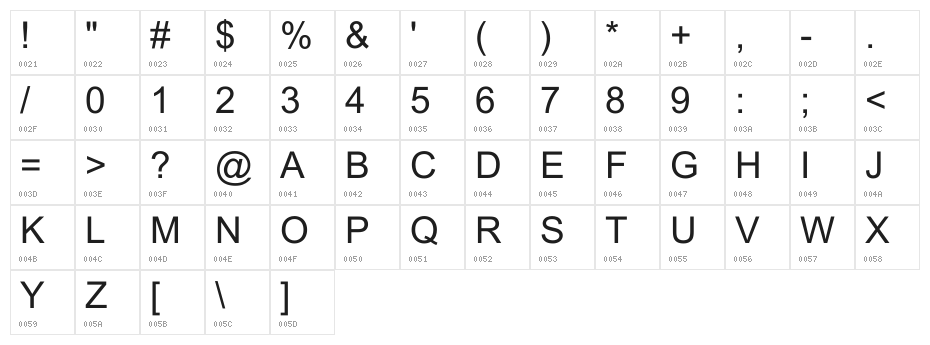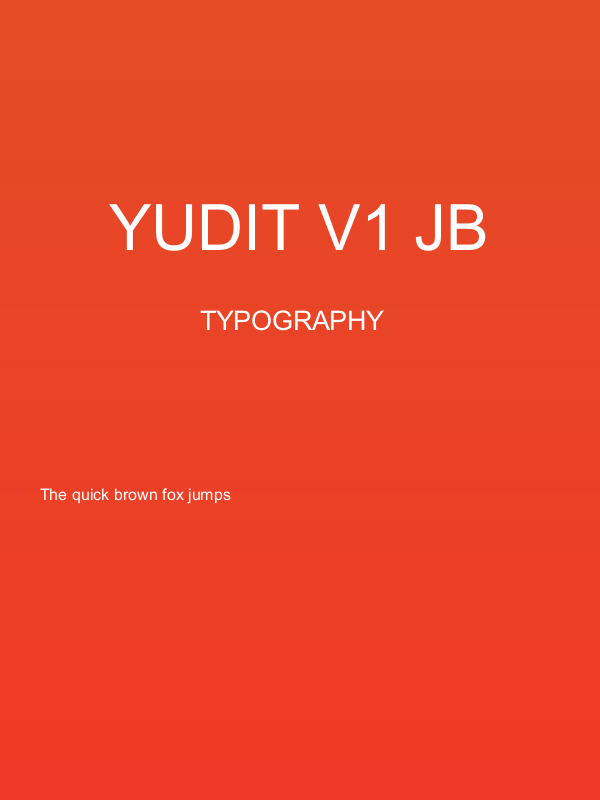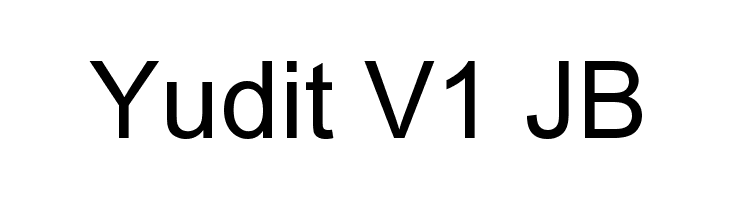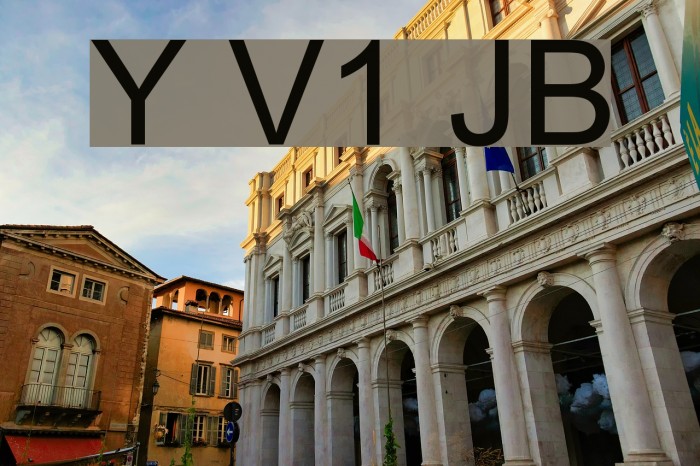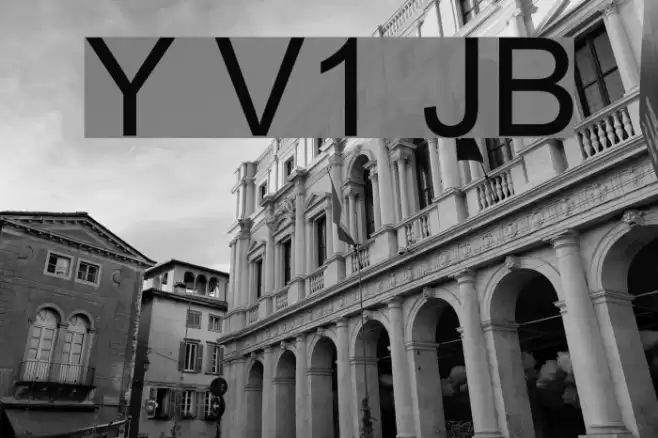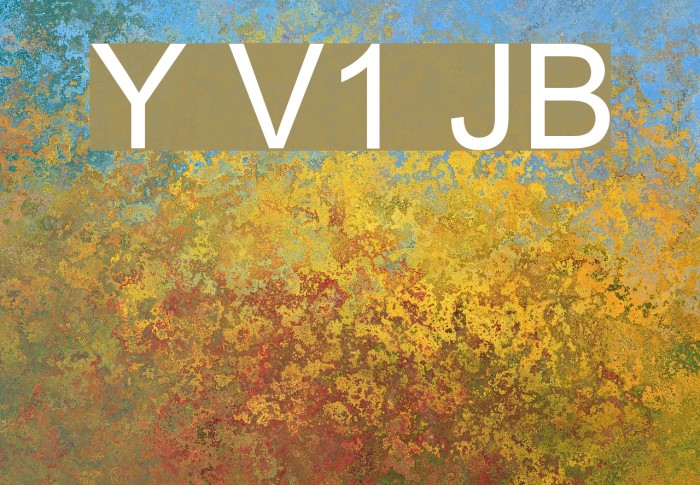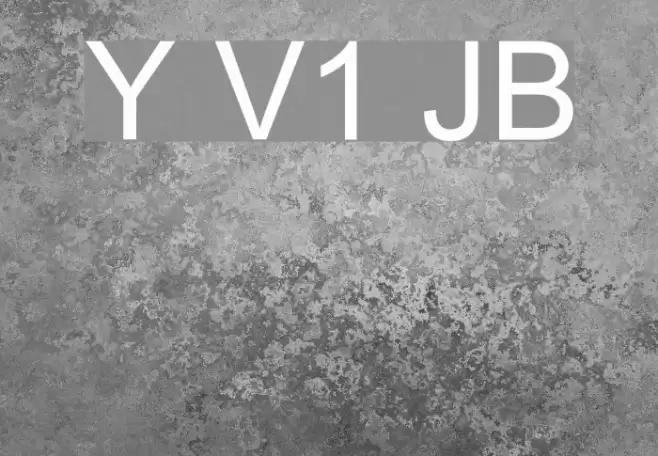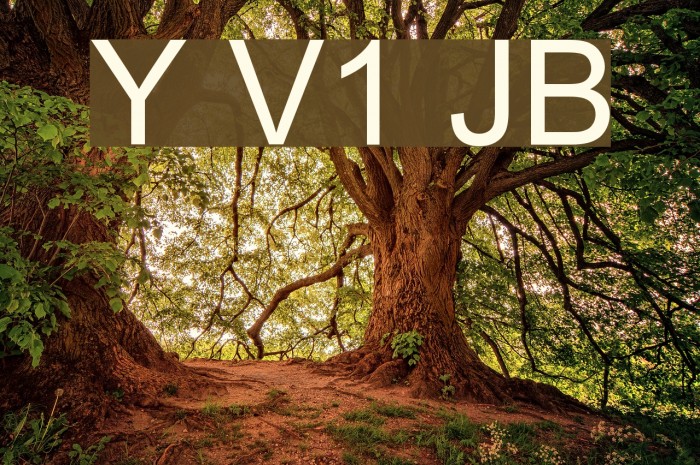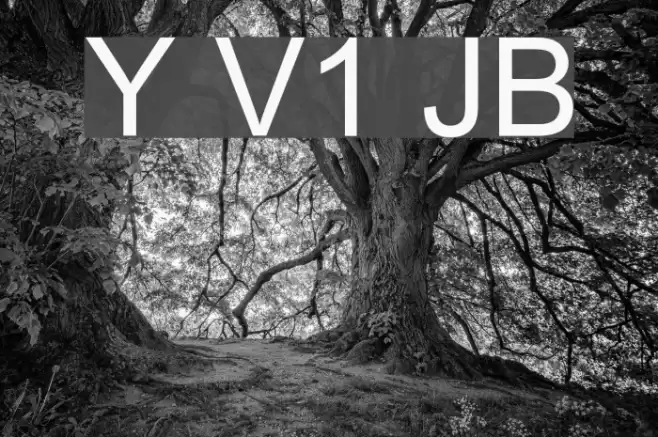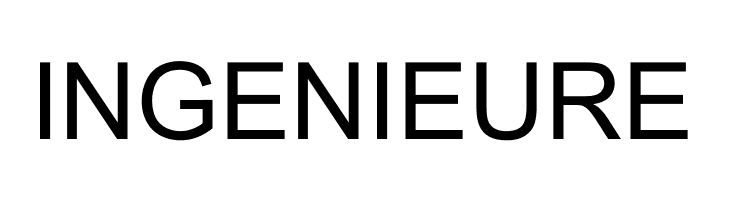
Yudit V1 JB Font
Yudit V1 JB Description
This font features a clean and modern sans-serif design, characterized by its simplicity and clarity. The letters are evenly spaced with a consistent stroke width, providing a balanced and harmonious appearance. The uppercase and lowercase letters are well-proportioned, making it highly legible. The numerals are straightforward and align perfectly with the overall style. Special characters are included, maintaining the same aesthetic consistency. This font is versatile, suitable for both digital and print media, and can be used in a variety of design contexts.